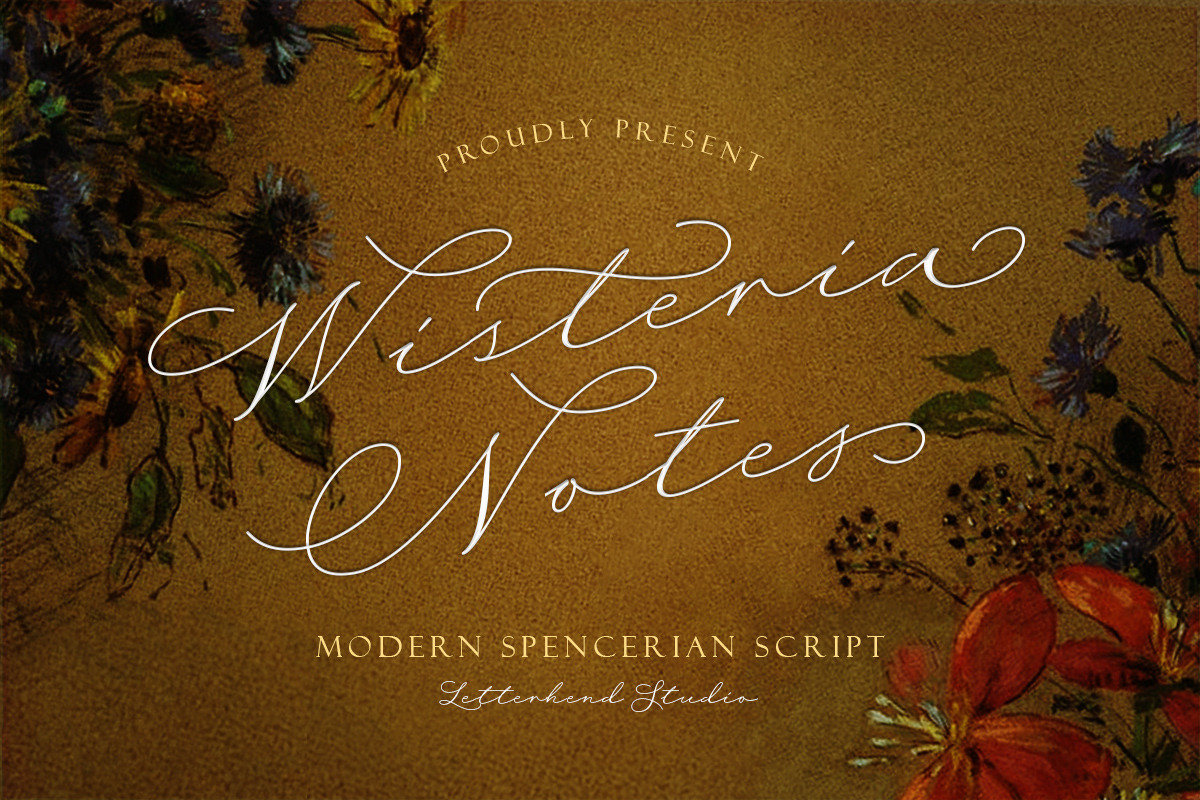
Wisteria Notes - Modern Script Font
Introducing, Wisteria Notes - A beautiful script based on manual hand writing. Inspired by old-fashioned calligraphy script, so classy and classic! This type of font perfectly made to be applied especially in logo, and the other various formal forms such as invitations, labels, logos, magazines, books, greeting / wedding cards, packaging, fashion, make up, stationery, novels, labels or any type of advertising purpose.
- swash and ligature
- alternates